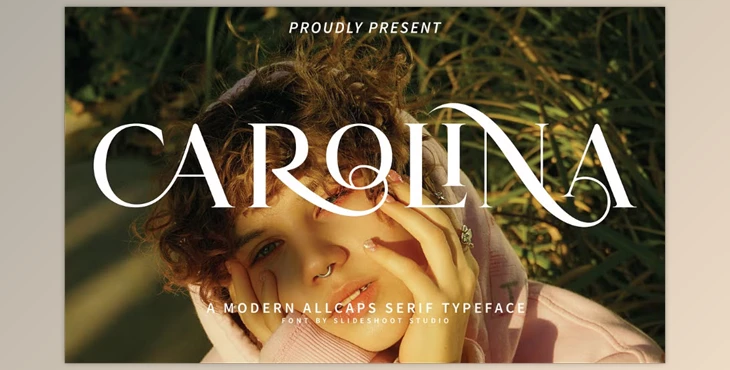
Carolina || Modern Serif Font Creative Market:
Carolina Serif is a refined and sophisticated serif font designed to elevate various design projects. With its smooth and elegant curves, it exudes a sense of balance and style, making it an ideal choice for invitation cards, company logos, movie titles, business cards, book titles, and brand names. The font features beautiful character shapes, enhanced by stylish alternations and ligatures, providing versatility and a polished touch to any creative work.
Some great features of Carolina || Modern Serif Font Creative Market:
- Includes ligatures for stylish character combinations
- Supports both uppercase and lowercase letters
- Contains numbering and punctuation symbols